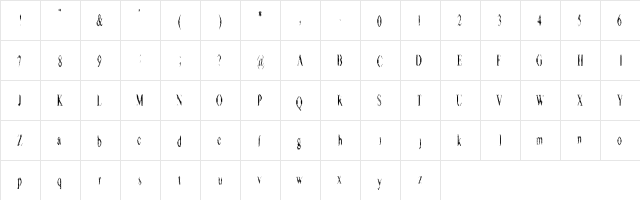
Terrorism Bytes WTC forever
| Designer | electriK MONk a.k.a.Keith S. Parent |
Design Context for Terrorism Bytes Typeface
Terrorism Bytes offers clean, dependable letterforms without strong stylistic allegiance, making it a practical choice for designers who need flexibility.